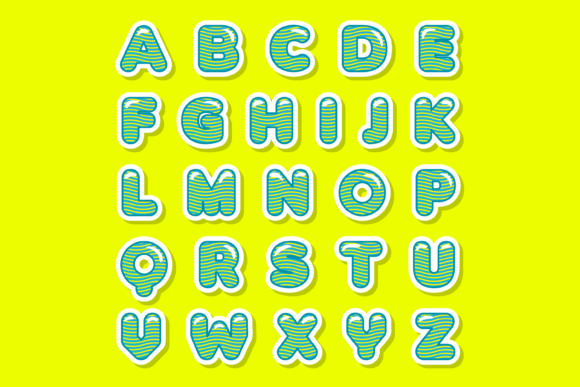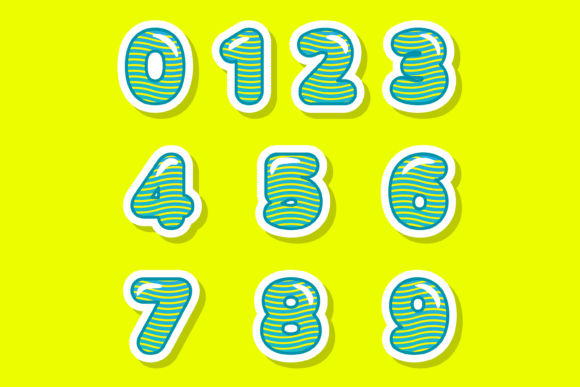
About Wave Pattern Font
Wave Pattern is a captivating and dynamic color font that adds a unique and mesmerizing touch to your designs. Whether you’re working on custom designs, DIY crafts, or any creative project that calls for a lovely and eye-catching element, Wave Pattern is an excellent choice that will make your creations truly stand out.
With its fluid and undulating wave-like patterns, this font creates a sense of movement and energy. The vibrant colors and intricate details of the font make it visually striking and engaging, capturing the attention of viewers and drawing them into your design.
Wave Pattern’s versatility allows it to shine in various applications. Whether you’re designing logos, posters, packaging, or even digital artwork, this font will add a dynamic and captivating element to your work, instantly grabbing the viewer’s attention.
Wave Pattern’s cool color palette further enhances its visual impact. From vibrant and energetic hues to soothing and calming tones, this font allows you to create captivating color combinations that evoke different moods and emotions in your designs.
Whether you’re an experienced designer or a passionate DIY enthusiast, Wave Pattern offers an amazing opportunity to infuse your projects with a touch of creativity and visual allure. Its dynamic design and captivating colors make every letter a work of art, ensuring that your designs leave a lasting impression.
Choose Wave Pattern as your go-to color font and let its mesmerizing waves and vibrant colors bring a sense of movement and excitement to your creative endeavors. With this font, your designs will have a captivating and unforgettable look, making it an incredible choice for any project that requires a lovely touch and a dash of artistic flair.